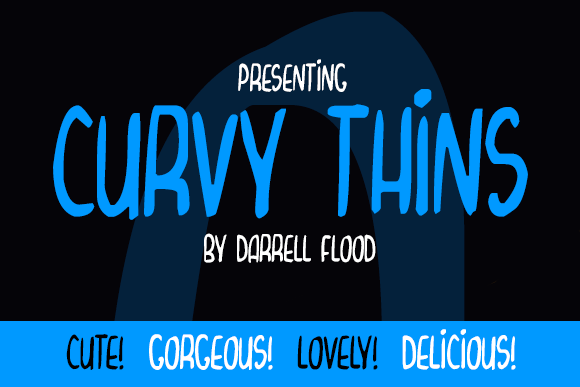
Curvy Thins Font
About Curvy Thins Font
A cute, hand-drawn font in a compact style. Ideal for lettering speech bubbles, and general cartoon use due to its freeform style and handwritten quality.